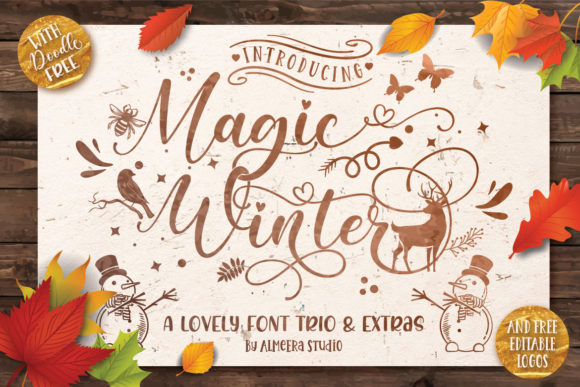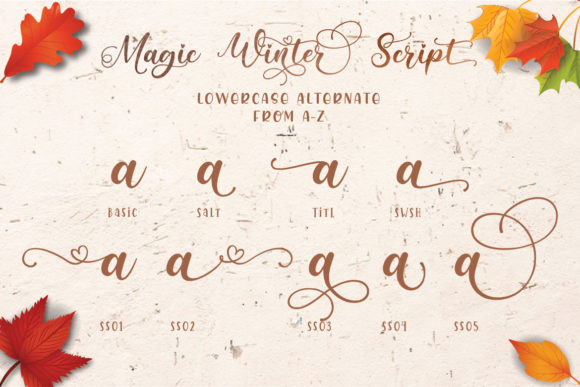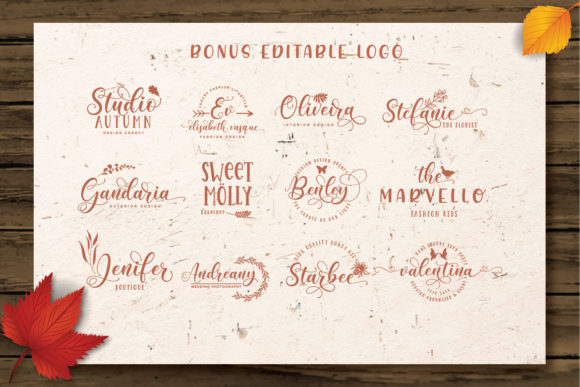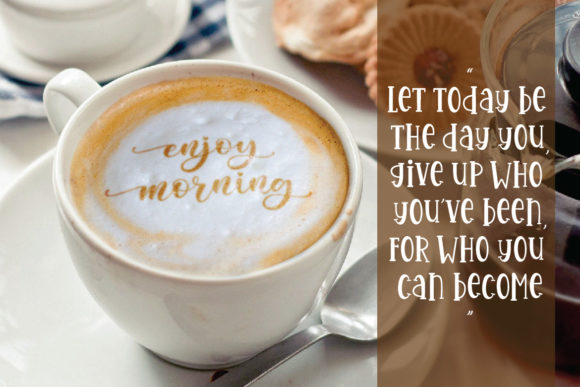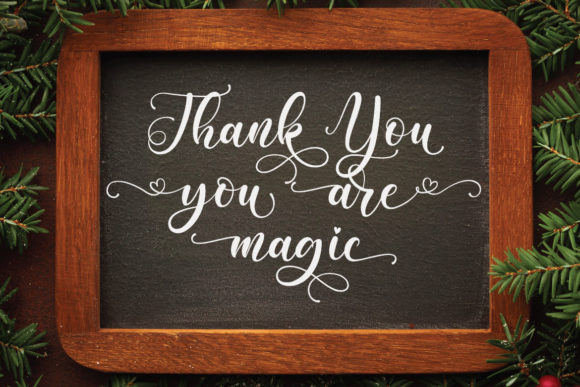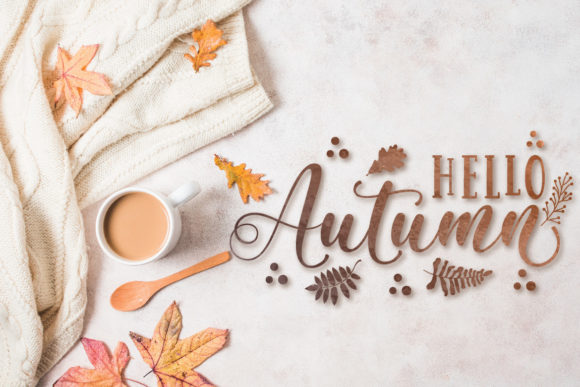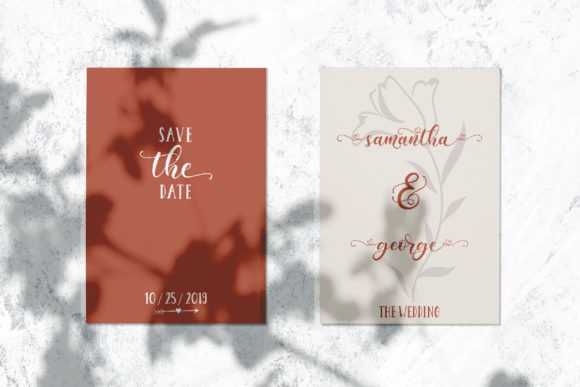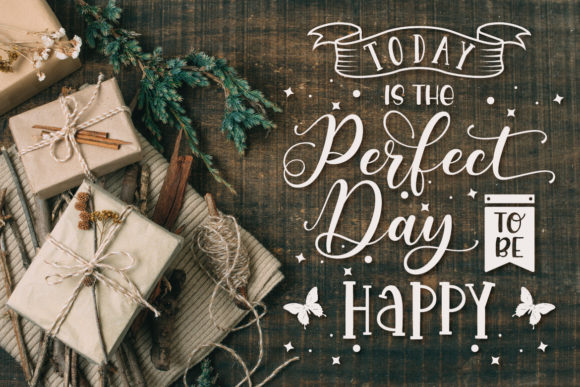
Magic Winter Trio Font
About Magic Winter Trio Font
Magic Winter is a fantastic font trio that combines three beautiful winter-themed fonts. Get inspired by this extraordinary set!